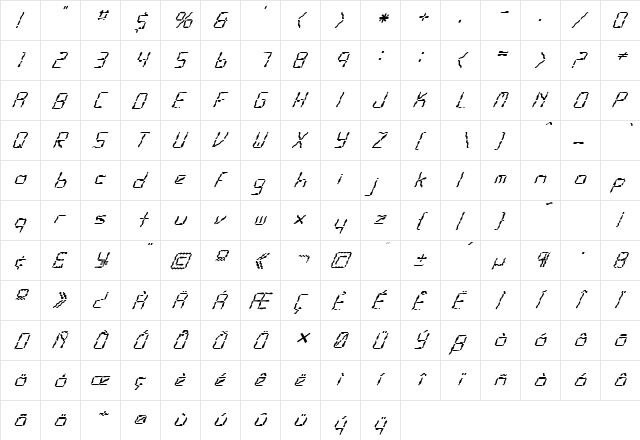
FZ DIGITAL 10 WAVEY ITALIC Normal Font Preview
Design Context for FZ DIGITAL 10 WAVEY ITALIC Typeface
FZ DIGITAL 10 WAVEY ITALIC has a distinctly futuristic character, with geometric precision and clean angles that feel at home in technology, gaming, and sci-fi contexts. Its italic angle brings a sense of urgency and motion to the letterforms.